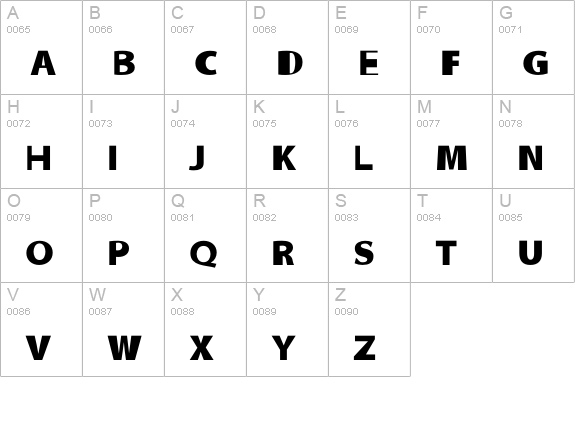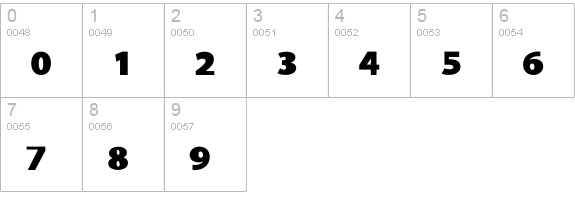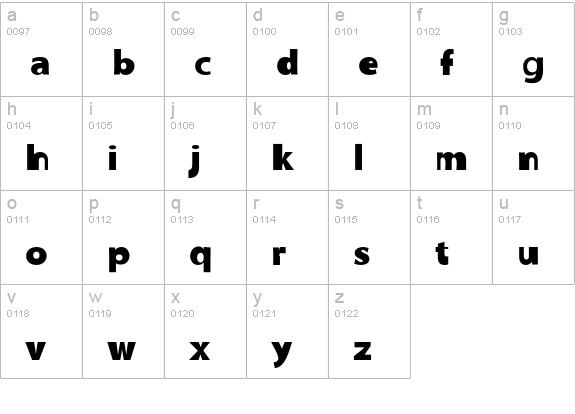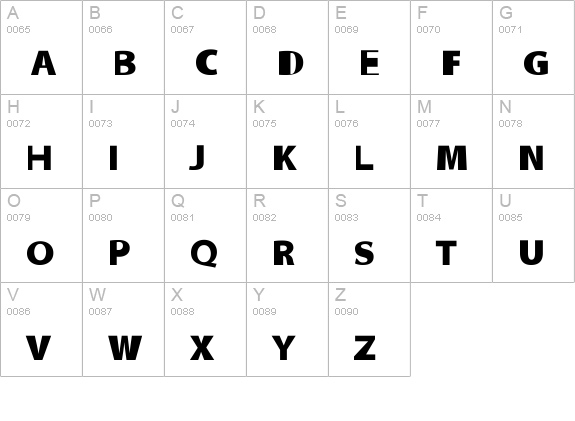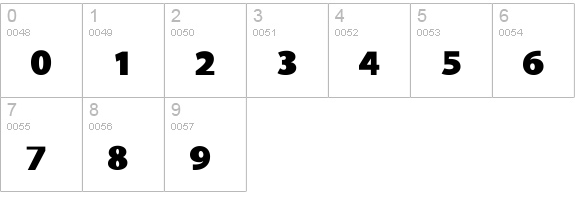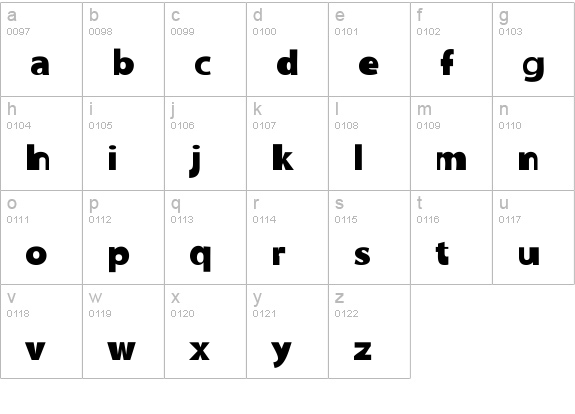
Cathodelic Font Details
Cathodelic font is a visually striking and modern typeface that combines elements of retro design with a futuristic twist. With its sleek lines and bold, geometric shapes, Cathodelic exudes a sense of energy and creativity that is perfect for making a statement in any design project. Whether you're working on a branding campaign, website design, or any other creative endeavor, Cathodelic is sure to capture attention and leave a lasting impression. The best part? Cathodelic font is available for free download at FontsMarket.com. This means that you can easily access this unique and eye-catching font without any cost, making it a valuable addition to your font library. Don't miss out on the opportunity to enhance your designs with the dynamic and captivating Cathodelic font today!